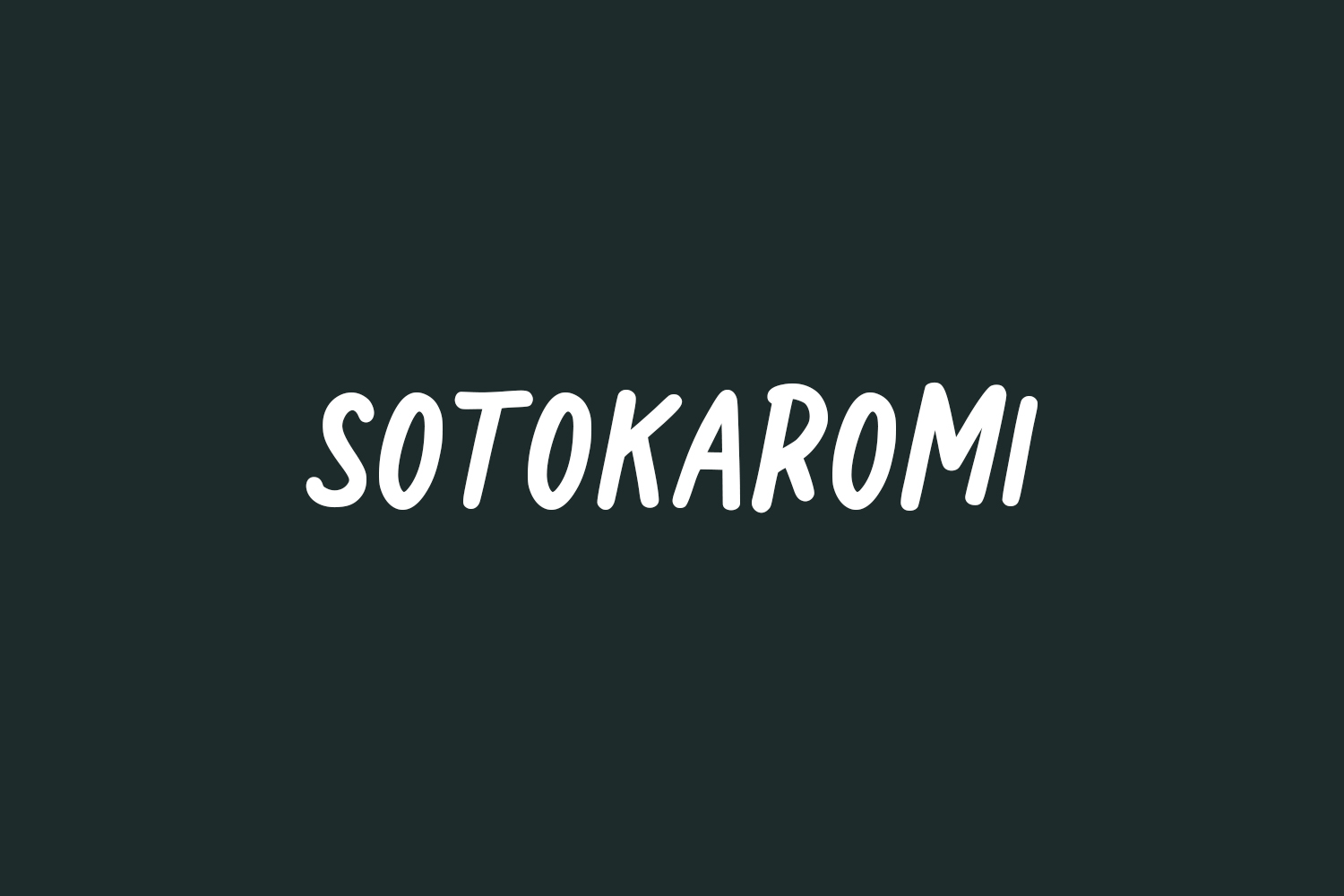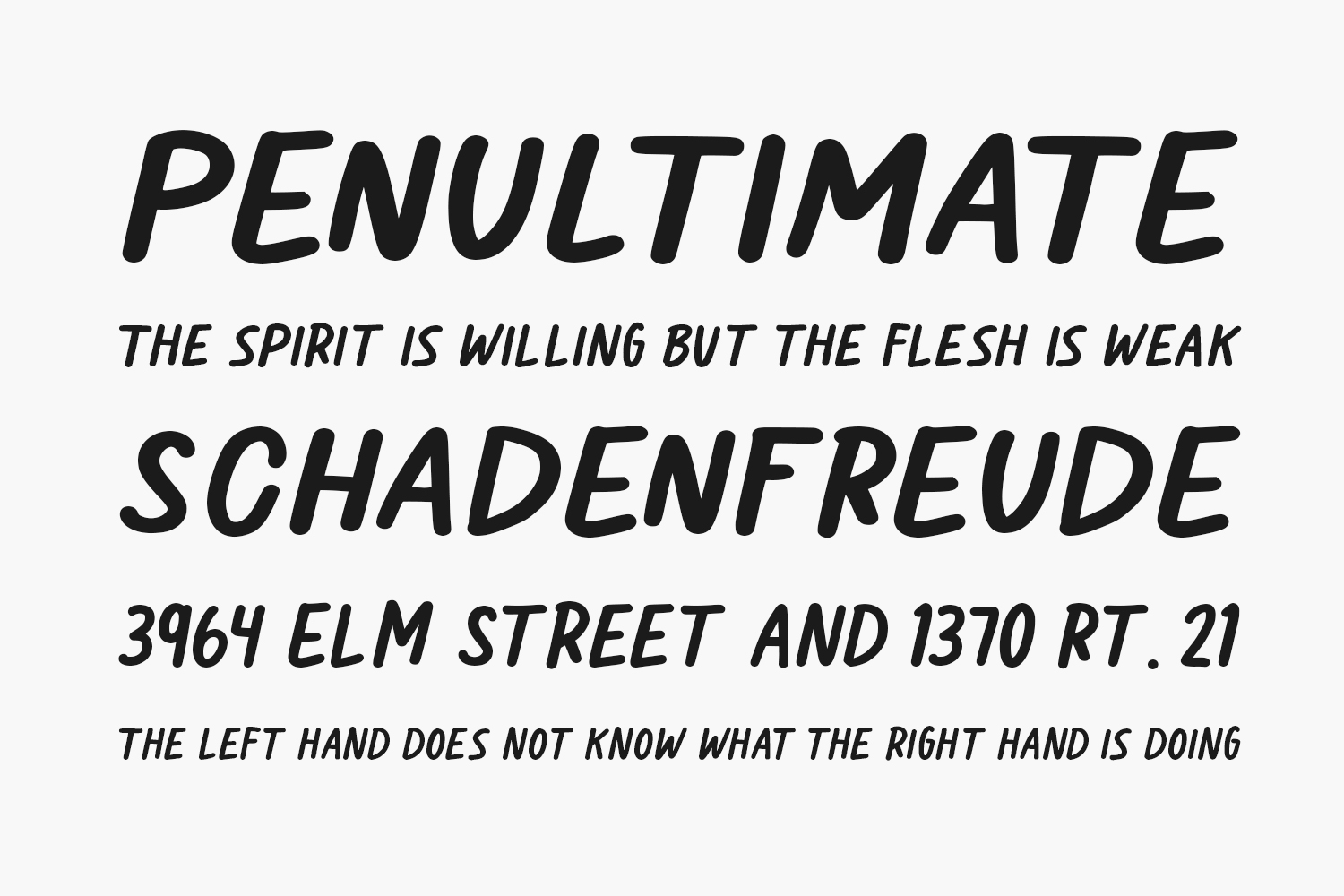
Sotokaromi Free Font is a simple, childish, and readable handwritten font. No matter the topic, this font will be an incredible asset to your fonts’ library, as it has the potential to elevate any creation. Sotokaromi Free Font was designed by Jimtype Studio and is free for personal use only. Please purchase the full version for commercial use.
Designed by Jimtype Studio